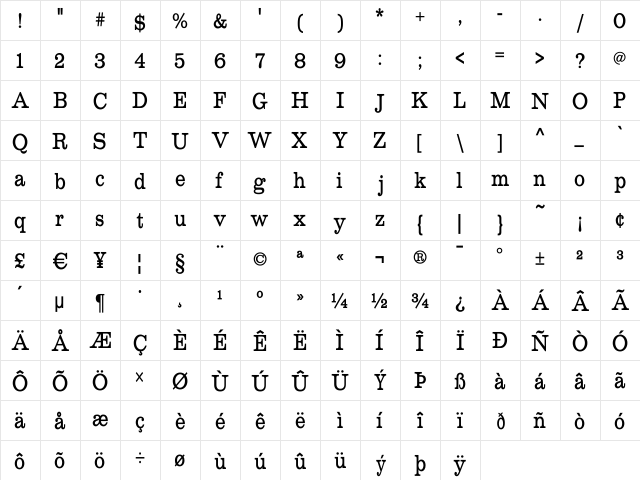
RoundslabSerif Regular
Design Context for RoundslabSerif Typeface
RoundslabSerif features prominent, blocky serifs that give it a confident, grounded presence — equally at home in editorial settings and bold branding work.
Works well in editorial design, news publishing, impactful branding, and poster typography.
Pro Tip: Try RoundslabSerif set tight in headlines for a classic editorial feel. Its slab serifs create strong horizontal rhythm that anchors a page layout.